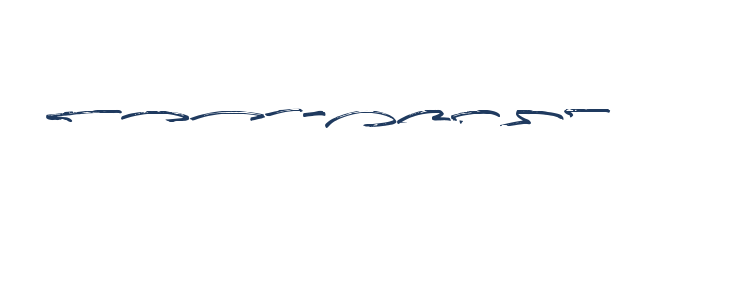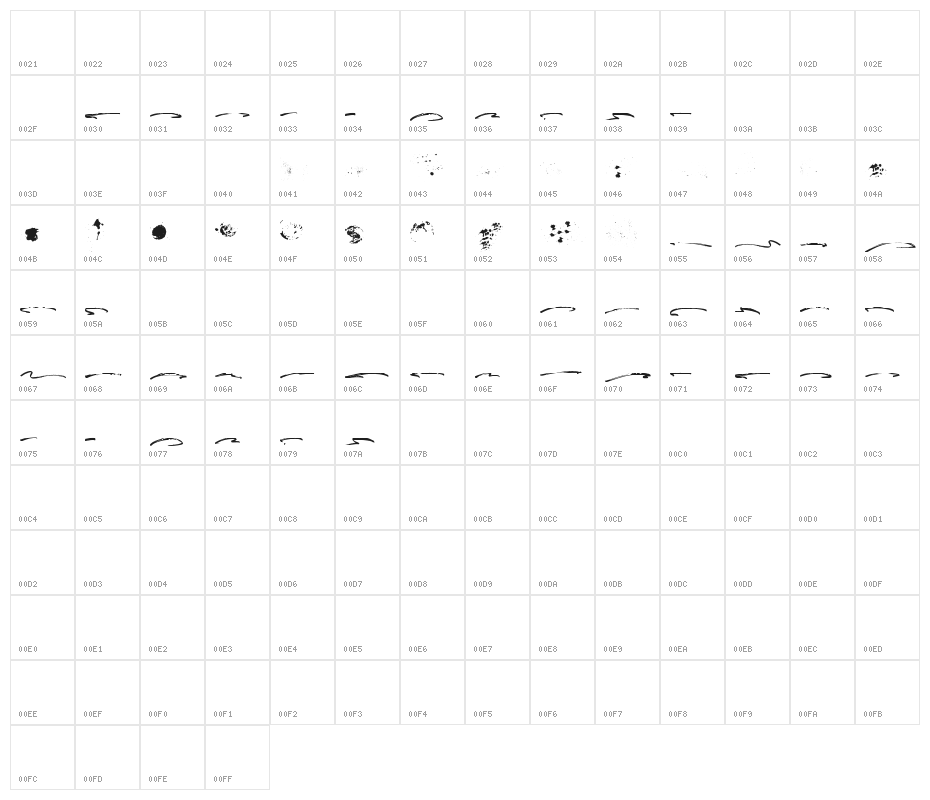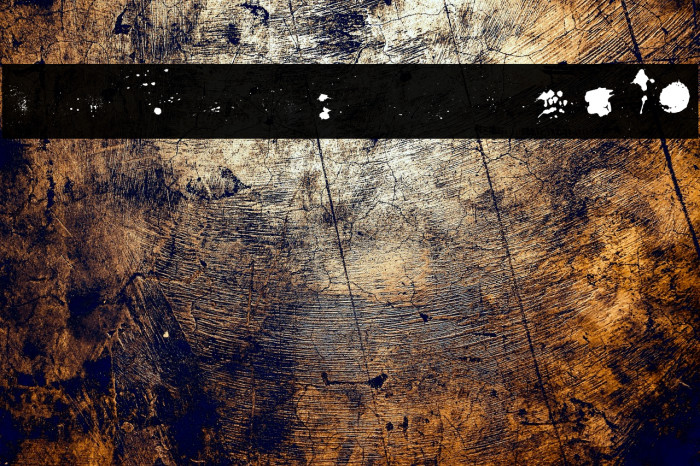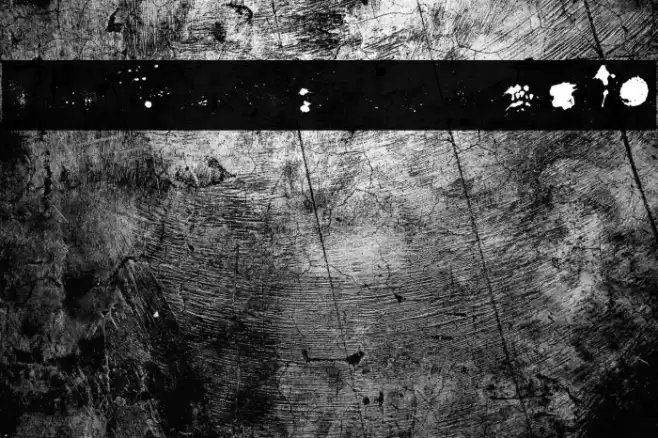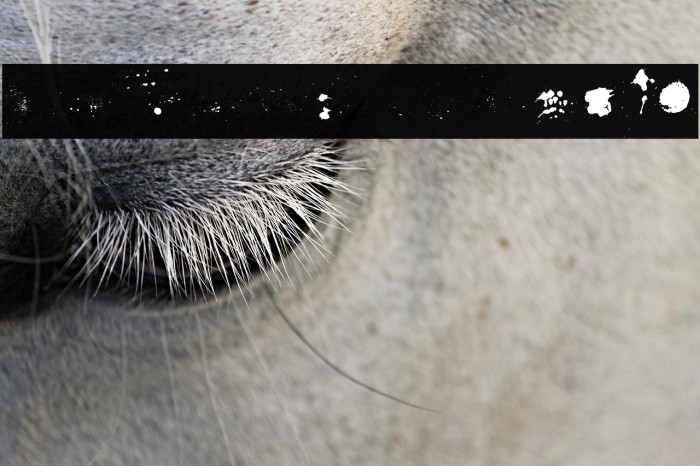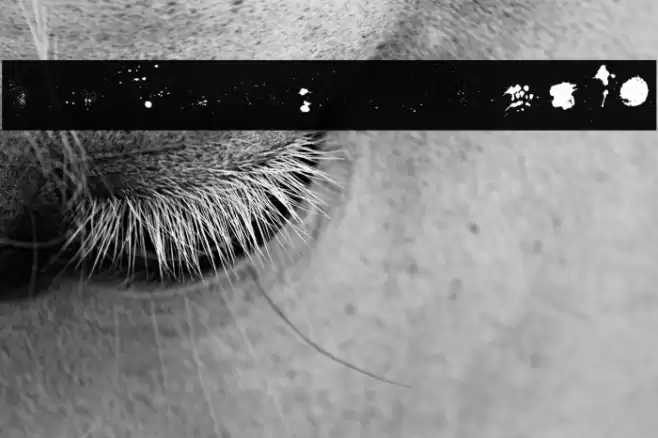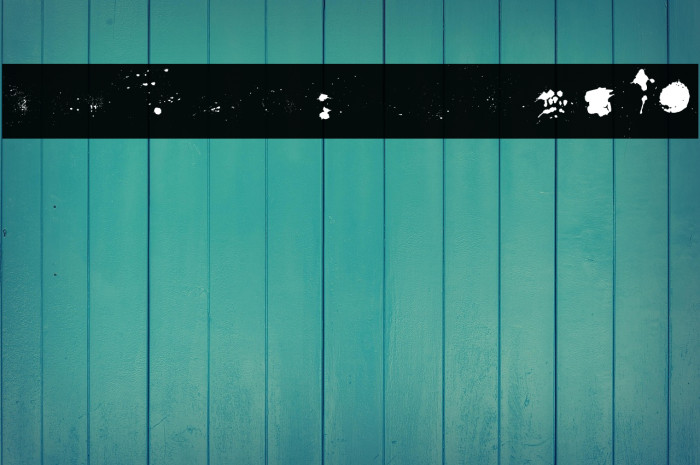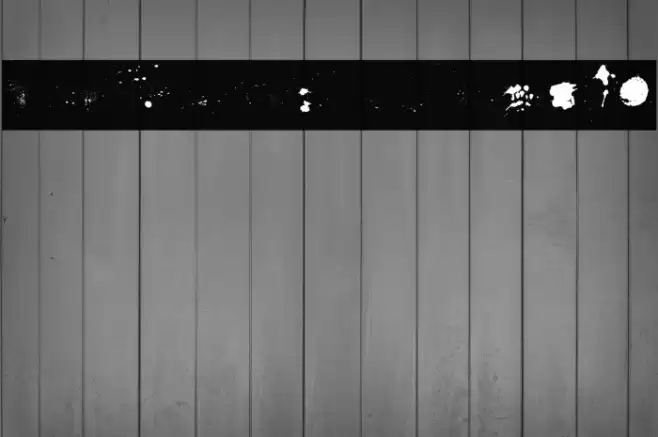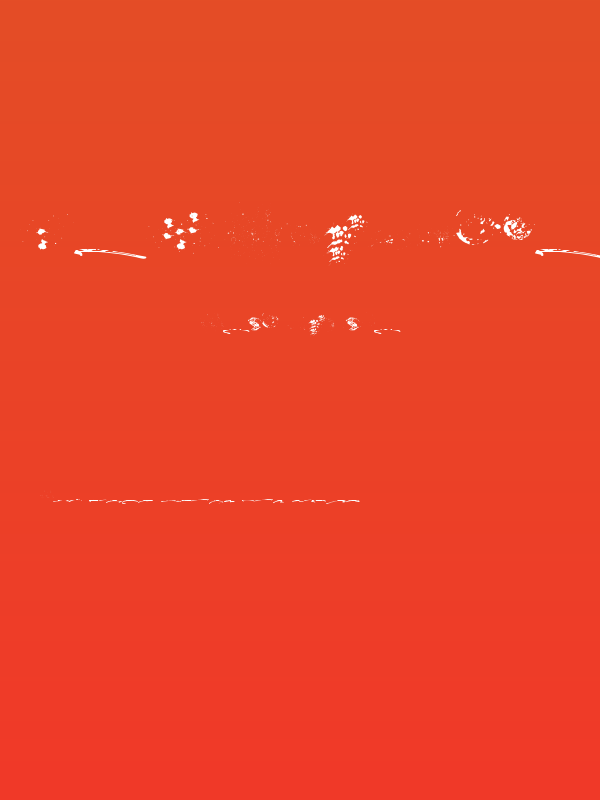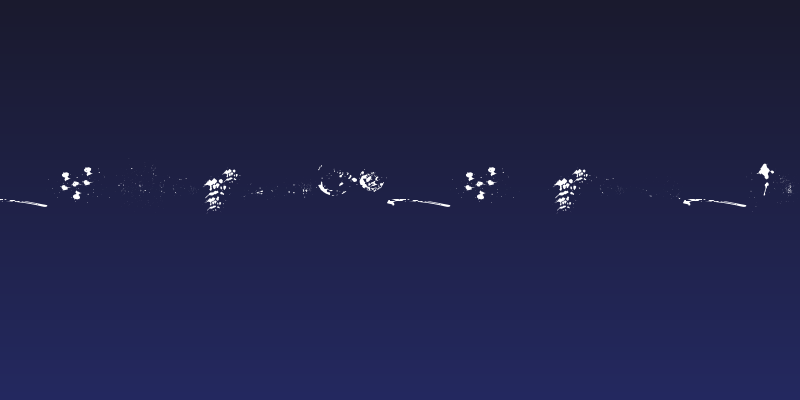
FusterdBonus-Regular Font
FusterdBonus-Regular Description
This font features a highly decorative and artistic style, characterized by its fluid, cursive strokes and intricate details. The letters appear to be hand-drawn with a calligraphic flair, incorporating splatters and irregularities that give it a unique, organic feel. The design is reminiscent of ink on paper, with varying line thicknesses that add depth and texture. This font is ideal for creative projects that require a touch of elegance and individuality, making it suitable for artistic and expressive designs.
| Overall Style | Artistic, Decorative |
| Use Case | Logos, Invitations, Artistic Posters |
| Proposed Projects | Ideal for invitations, artistic posters, branding, and creative projects requiring a unique, personal touch. |